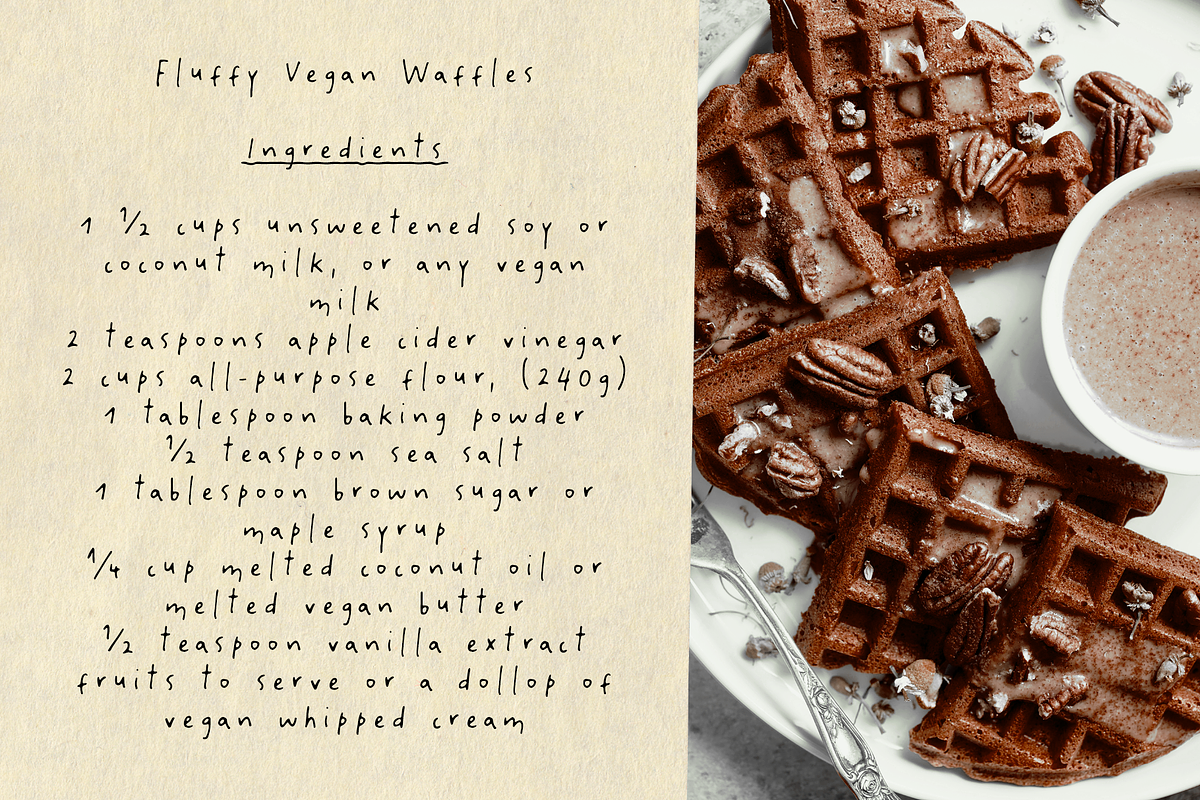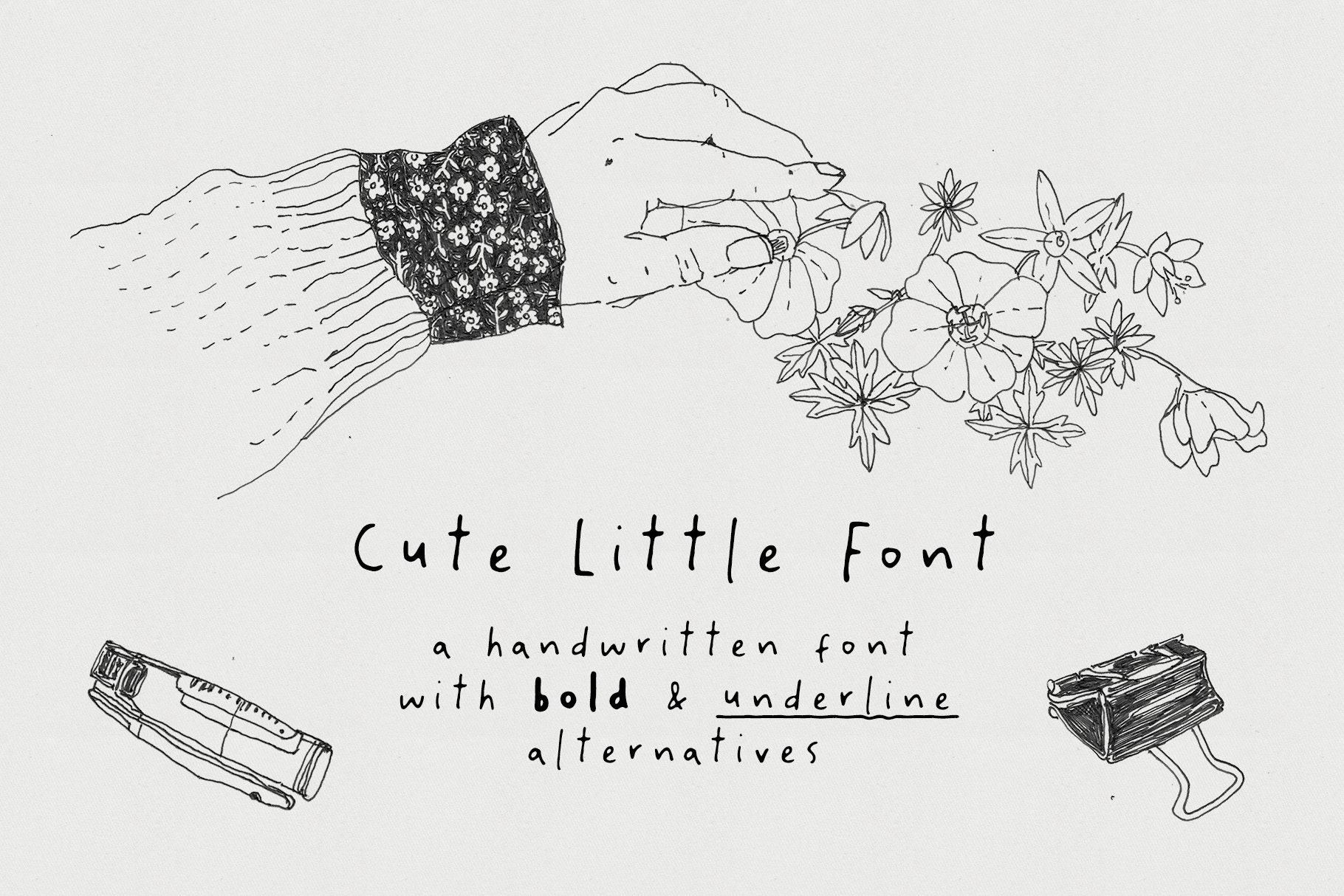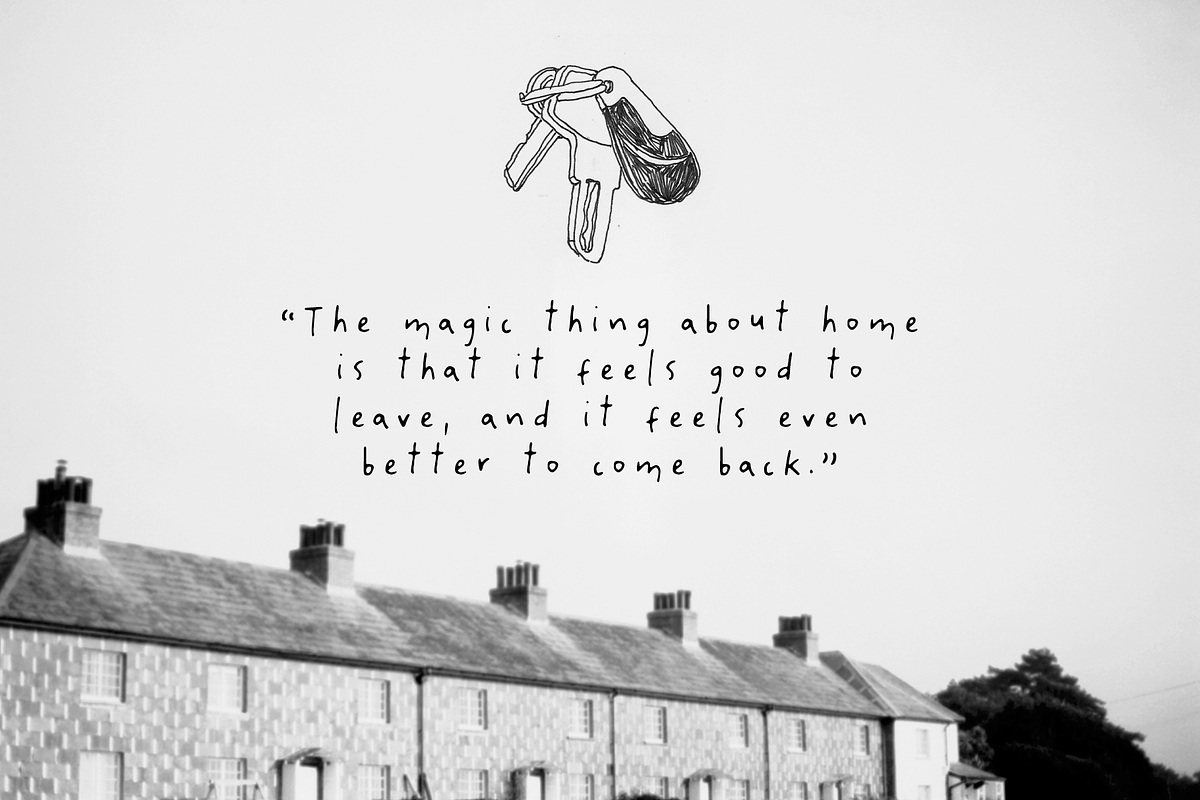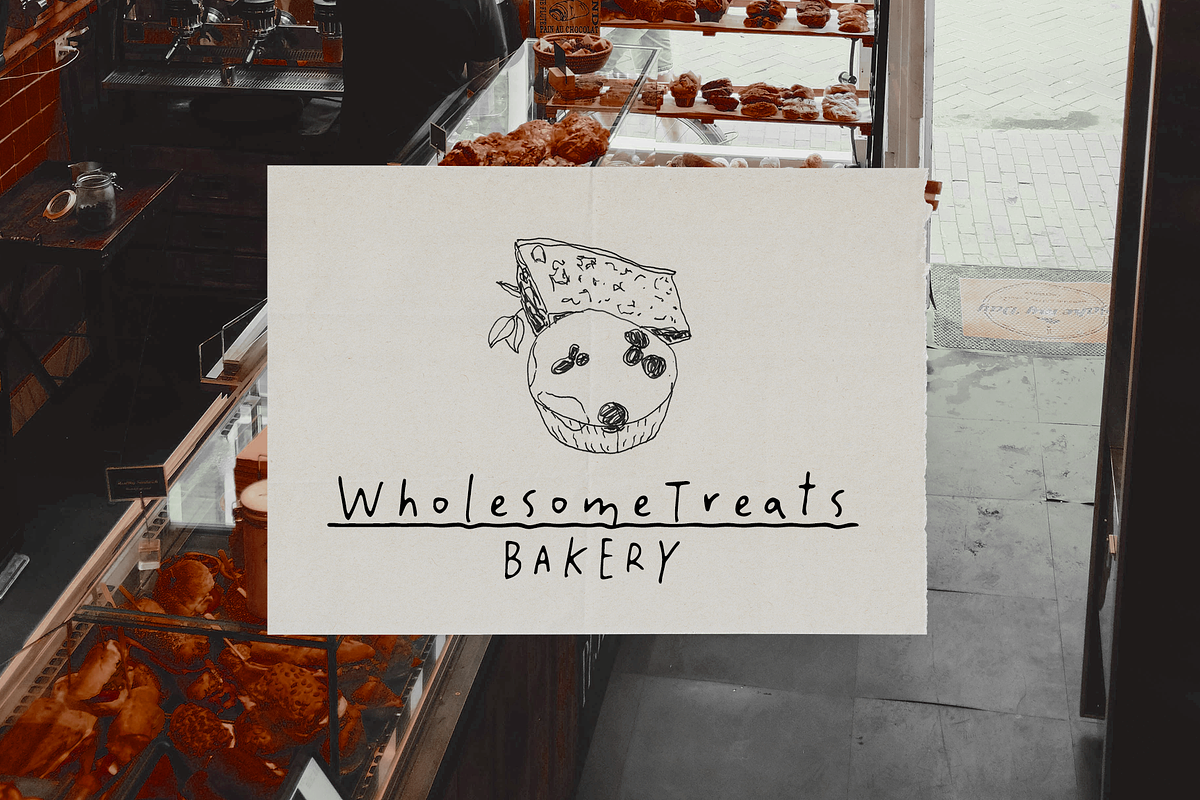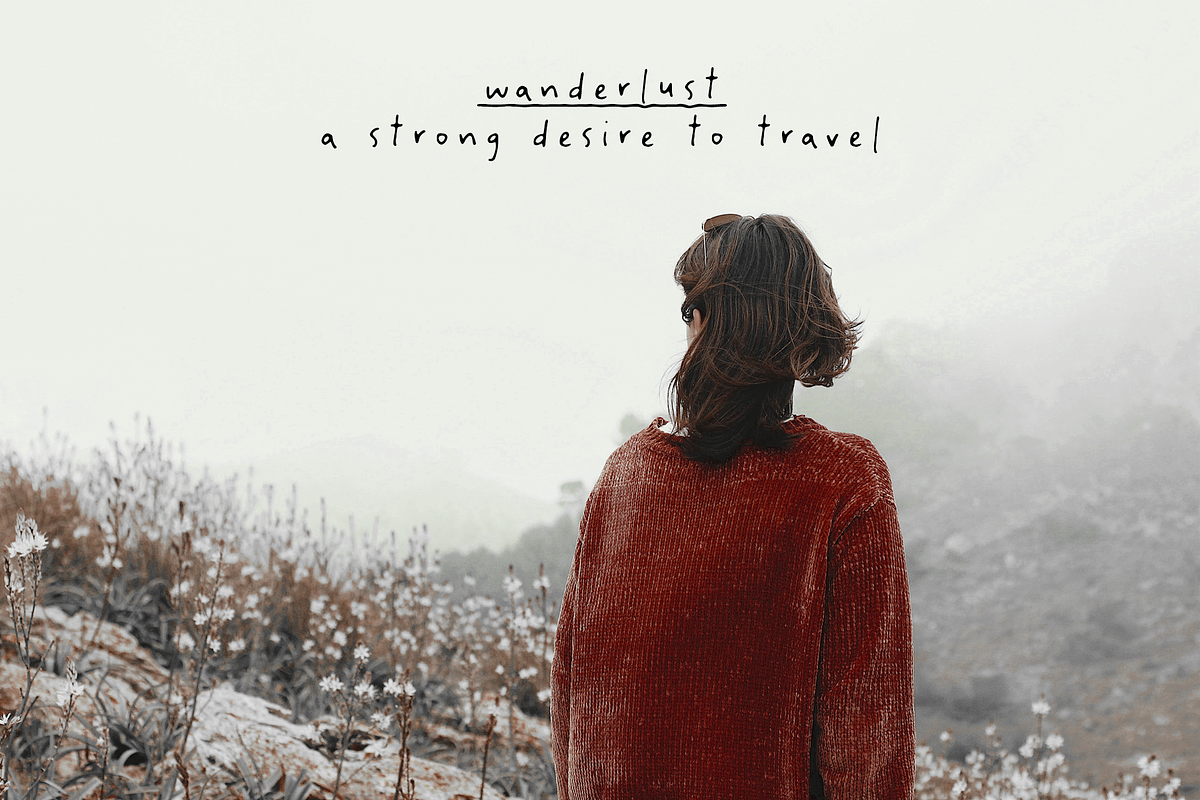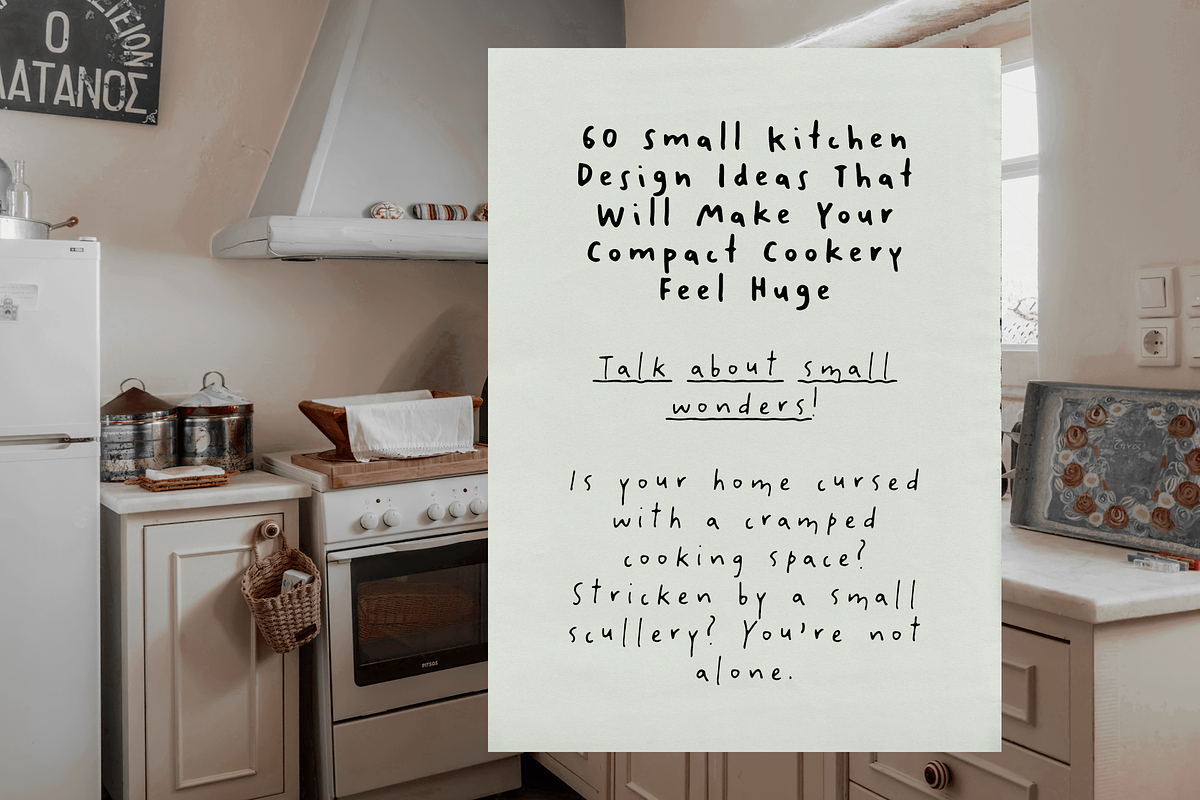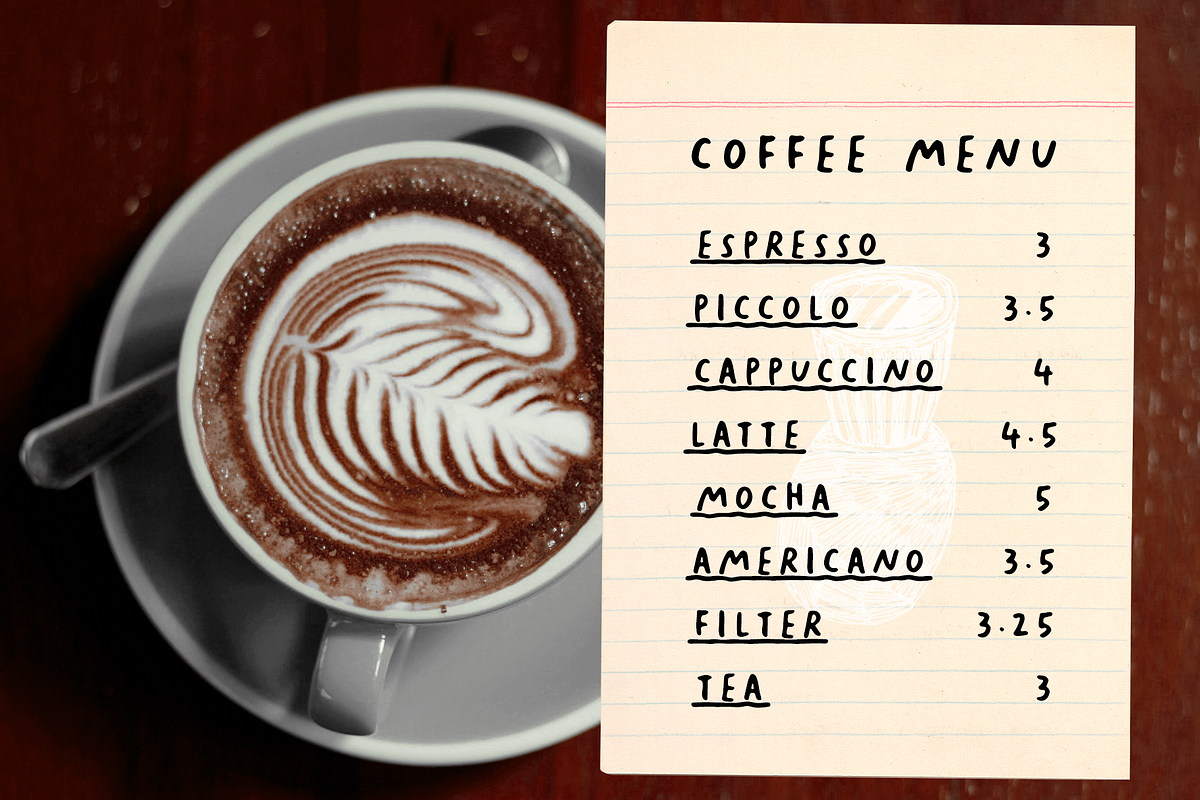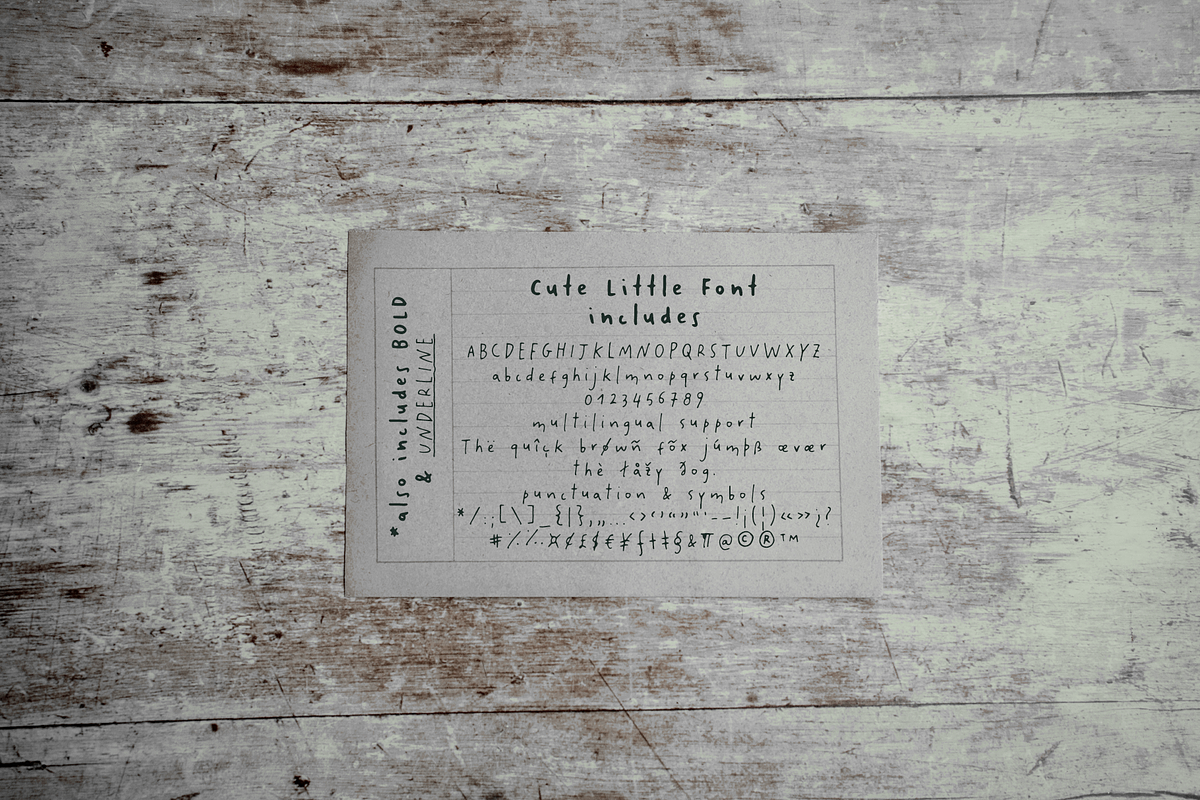
Cute Little Handwritten Font
Introducing Cute Little Font, your new favorite handwritten typeface! Perfect for adding whimsy and charm to any project, this font brings a personal and heartwarming touch to your designs.
Regular, Bold, Regular Underline and Bold Underline fonts
Authentic Handwritten Style: Natural, playful penmanship for a genuine look.
Complete Character Set: Includes uppercase, lowercase, numerals, and punctuation.
Multilingual Support: Ensures your message reaches a global audience.
Perfect for Crafting: With smooth lines, this font is great for DIY projects, scrapbooking, and professional designs.
Usage Ideas: Inspired by scribbles and heartfelt notes, Cute Little Font evokes nostalgia and joy, making it perfect for emotionally engaging projects, such as:
Personalized Stationery: Letters, cards, and notes.
Event Invitations: Weddings, birthdays, and special occasions.
Home Decor: Custom prints and wall art.
Branding: Unique identity for small businesses and blogs.